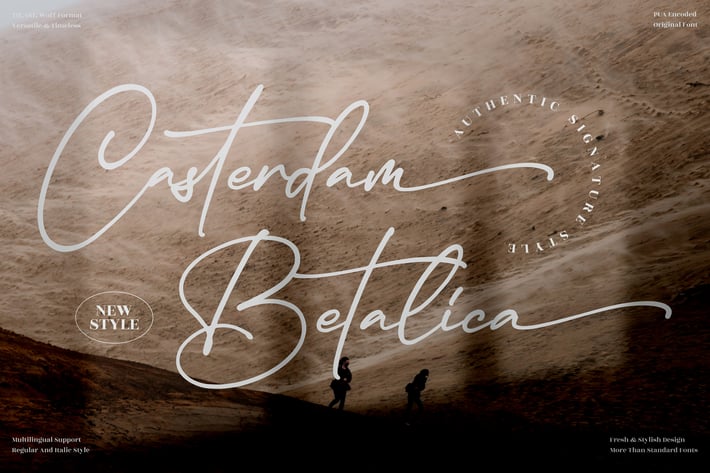
Casterdam Belatica Signature Font
Casterdam Belatica is a modern signature font with a raw, cinematic elegance — fluid, expressive, and naturally confident. Its flowing strokes feel personal yet powerful, like a handwritten signature carved by experience, making every design feel bold, authentic, and premium.
Modern signature style with dynamic strokes
Smooth flow mixed with natural handwritten energy
Elegant yet strong personality
Clean readability with expressive flair
Perfect balance between artistic and professional
Luxury branding & personal logos
Fashion, photography, and creative studios
Cinematic posters & editorial layouts
Social media headlines & quotes
Signature-style packaging & merchandise
Bold, authentic, and effortlessly stylish — Casterdam Belatica signs your work with confidence.*